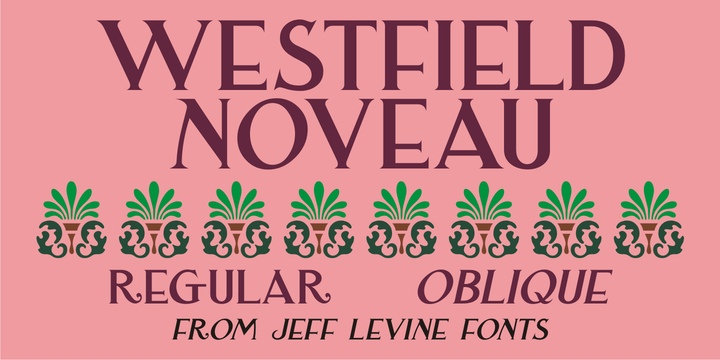
Westfield Nouveau JNL Font
Westfield Nouveau JNL Font is perfect for Art Nouveau inspired posters, vintage boutique branding, elegant wedding invitations, upscale wine labels, antique jewelry packaging, heritage hotel signage, luxury spa materials, classical music promotions, fine art gallery displays, and sophisticated brand identity systems.
Westfield Nouveau JNL Font creates excitement because it masterfully captures the flowing elegance and ornate sophistication of the Art Nouveau movement with its graceful curves and decorative flourishes. The font's refined artistic details and flowing organic forms instantly evoke the golden age of decorative arts, making any project appear cultured and artistically distinguished. Its carefully balanced ornamental elements and sophisticated character design create an immediate sense of artistic heritage that captivates audiences who appreciate classical beauty and timeless artistic refinement.
The Westfield Nouveau JNL Font family includes multiple weights and styles: Regular, Bold, Light, Medium, Italic, Ornamental, Condensed, Extended, Shadow, and Decorative versions. Each variant maintains the font's authentic Art Nouveau character while offering different levels of ornate detail and visual presence for various sophisticated design applications.
This exquisite typeface brings the artistic elegance of the Belle Époque era into contemporary design projects with remarkable authenticity and grace. Westfield Nouveau JNL Font Free Download offers designers and luxury brands access to premium Art Nouveau typography that embodies the sophisticated artistry of turn-of-the-century decorative design. The font's ornate beauty and classical inspiration make it ideal for businesses and organizations seeking to establish connections with artistic heritage and refined cultural values. Whether you're creating branding for luxury goods, designing materials for cultural institutions, developing packaging for premium products, or producing content for high-end hospitality venues, this font delivers the sophisticated artistic appeal that resonates with discerning audiences who value classical elegance. Its versatile design ensures excellent performance across both intimate printed materials and grand display applications while preserving the intricate details of original Art Nouveau lettering. The font excels in applications requiring cultural sophistication and artistic authenticity. Design professionals appreciate its ability to convey refinement and artistic knowledge, essential qualities for luxury brands and cultural organizations. The comprehensive character set includes period-appropriate ornamental elements and international language support, making it suitable for global luxury markets and international cultural institutions seeking typography that communicates timeless artistic sophistication and classical European design sensibilities to educated, culturally aware audiences worldwide.